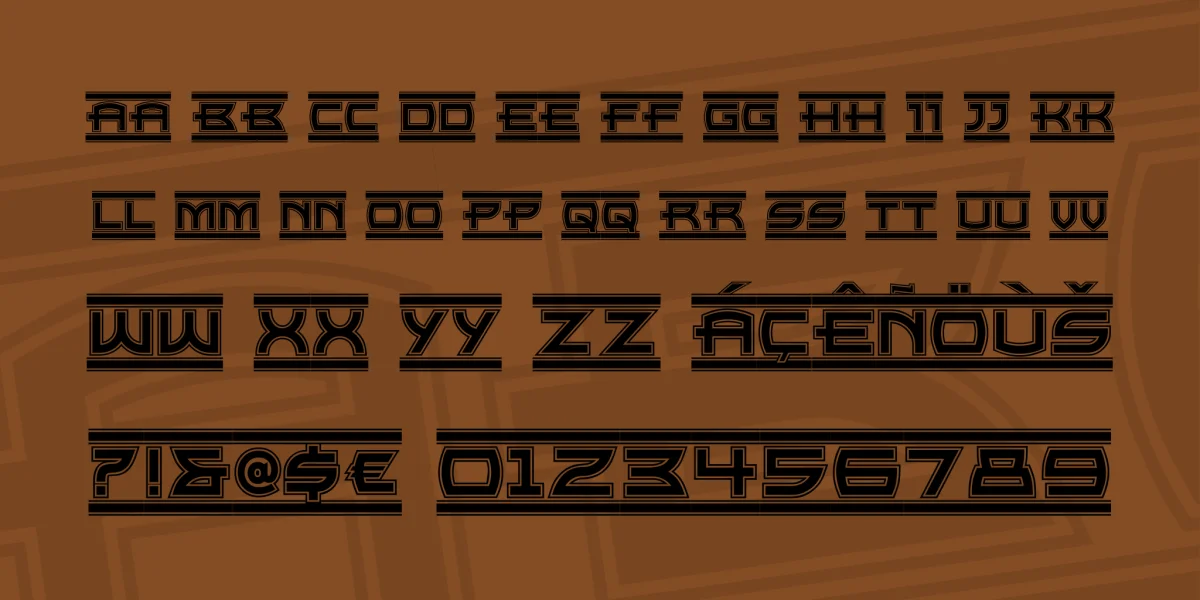
Here’s a font with a strong architectural feel, inspired by a 1999 stamp issue by the United States Postal Service commemorating the great steam trains of the twentieth century. Notes on special characters: use the equal sign = for spaces; use (parentheses) to open and close the line caps; use {braces} to enclose with semicircles; and use brackets to enclose with straight lines.